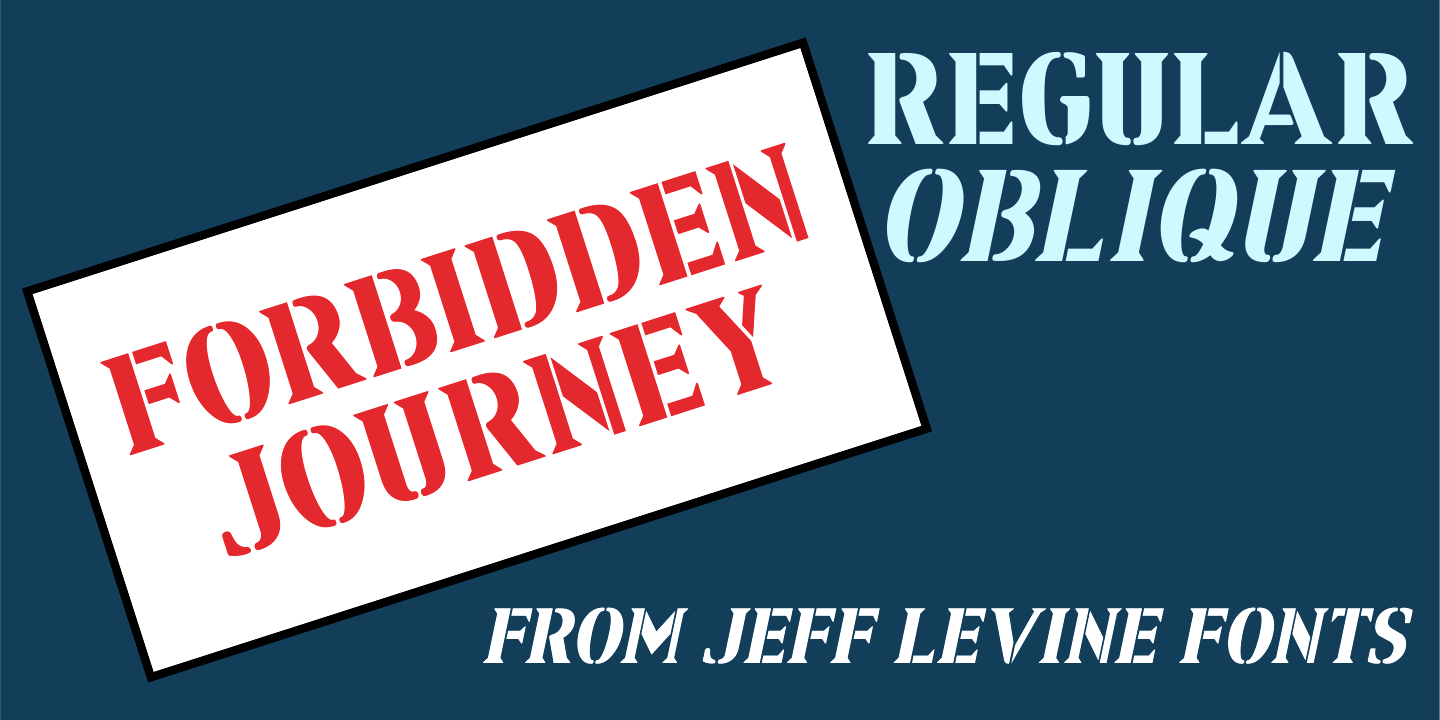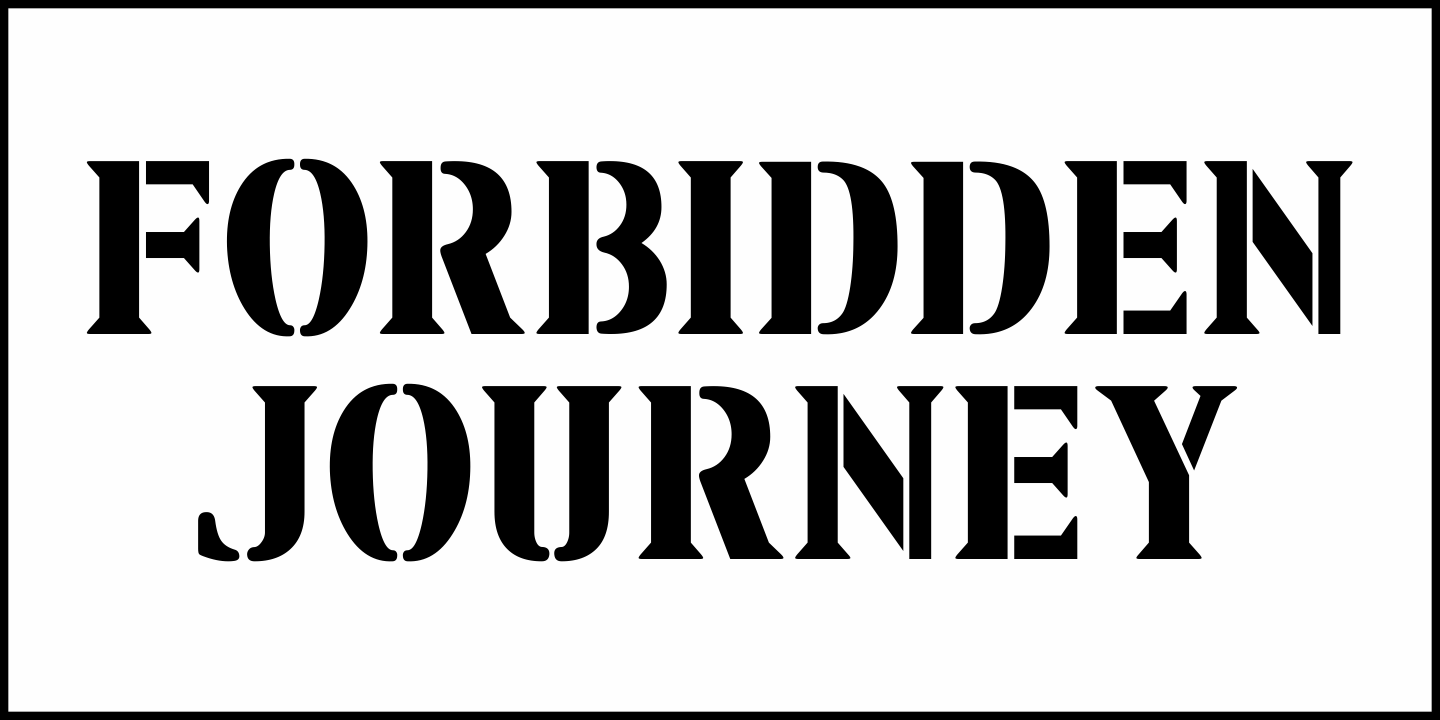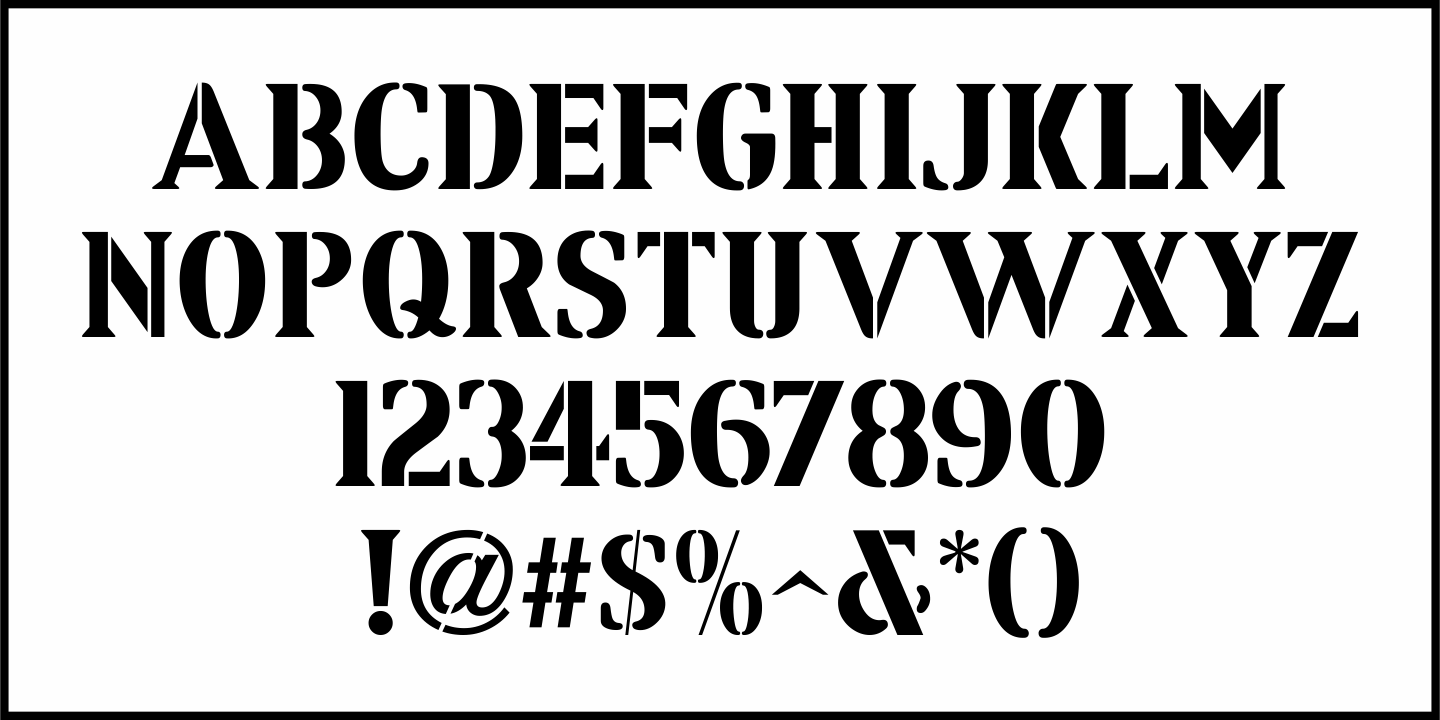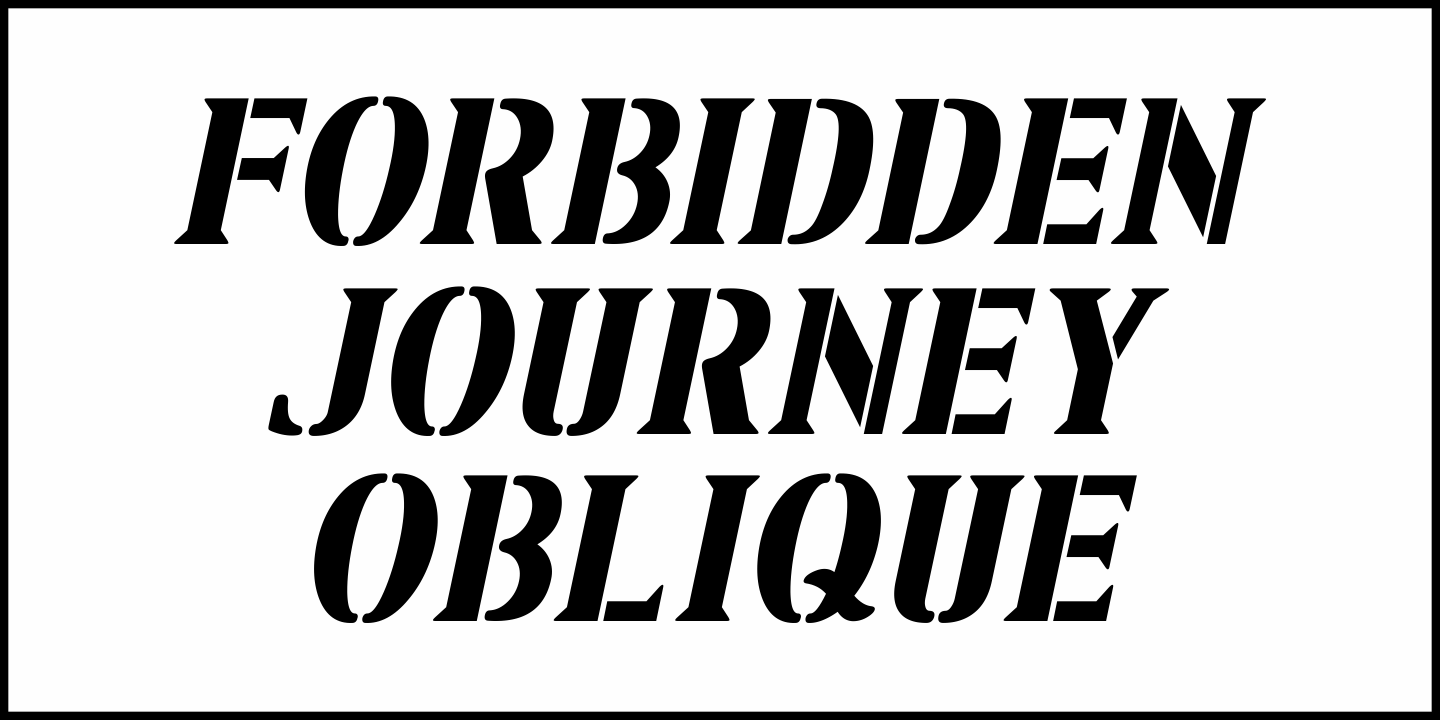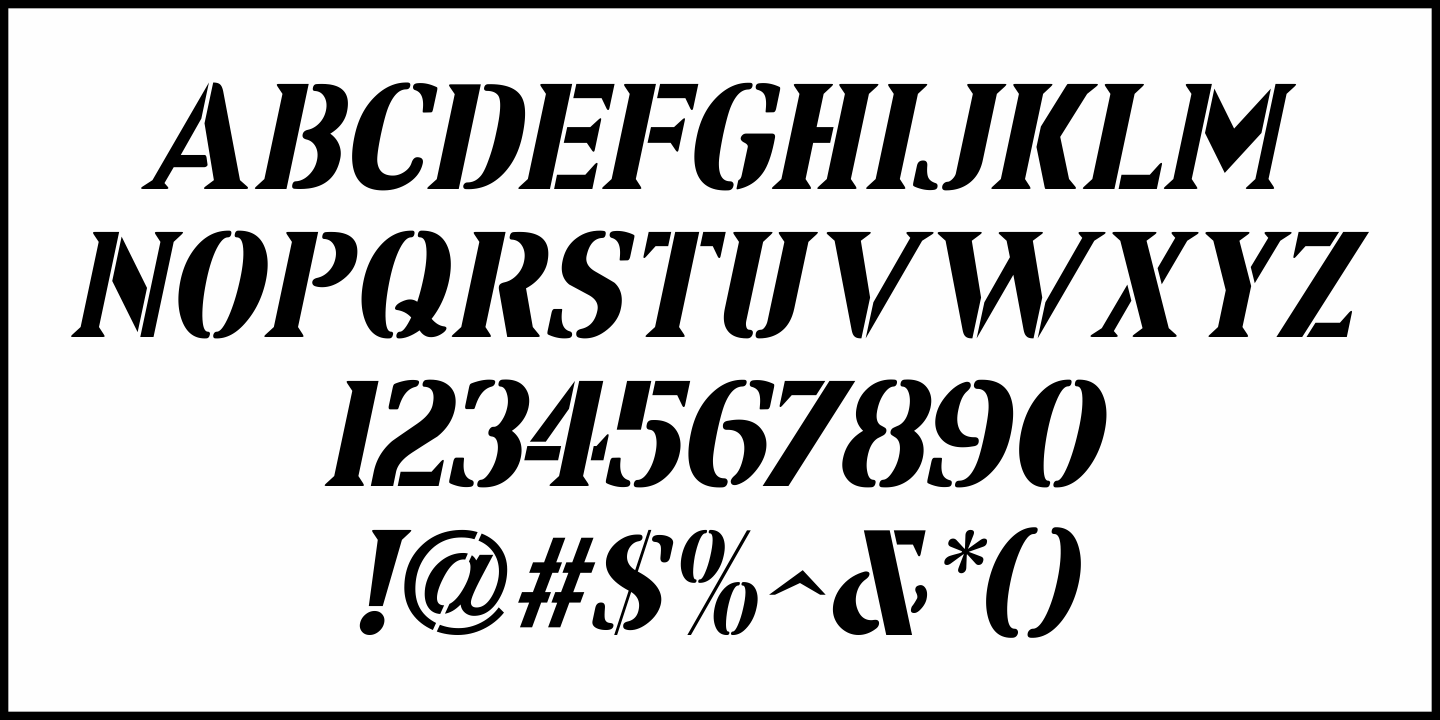
Forbidden Journey
In the March 7, 1925 issue of the industry trade paper "The Reel Journal" was an ad for the film "Forbidden Cargo". In it, the movie's title was hand lettered in a bold serif stencil design.
This is now available as Forbidden Journey JNL in both regular and oblique versions.